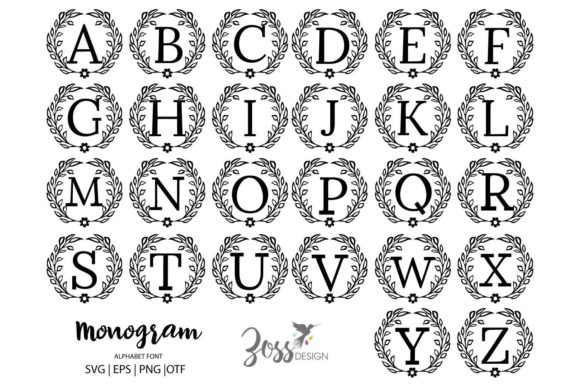
Zoss Monogram Font
Dive into the world of sophistication with Zoss Monogram Font, a decorative font family that exudes elegance and distinction. Crafted with meticulous care by amanda.zoss, this font is not just a collection of letters; it's an expression of artistry, designed to elevate your creative projects to new heights.
Zoss Monogram Font is the perfect choice for those seeking a font that speaks volumes without uttering a single word. Its intricate swirls and delicate curves add a touch of grace and charm to any design, making it ideal for creating logos that demand attention, wedding invitations that radiate romance, headings that command respect, and t-shirts that make a statement.
But Zoss Monogram Font's versatility doesn't stop there. It shines equally brilliantly on letterhead, signage, labels, news, posters, and badges. Its ability to adapt to diverse applications makes it a valuable asset for designers, crafters, and businesses alike.
Whether you're a seasoned designer seeking to add a touch of elegance to your work or a creative enthusiast looking to make your mark, Zoss Monogram Font is the perfect companion. Its timeless beauty and endless possibilities will inspire you to create designs that captivate and enchant.